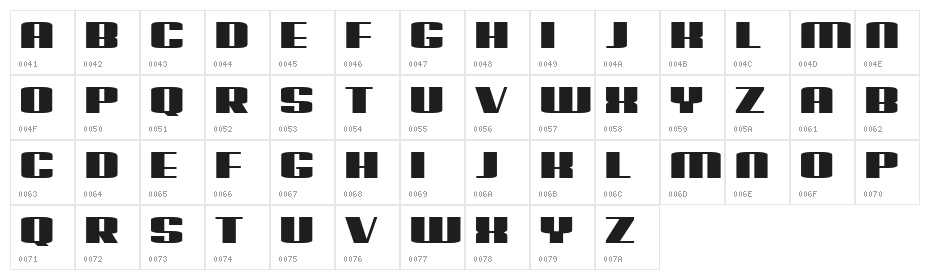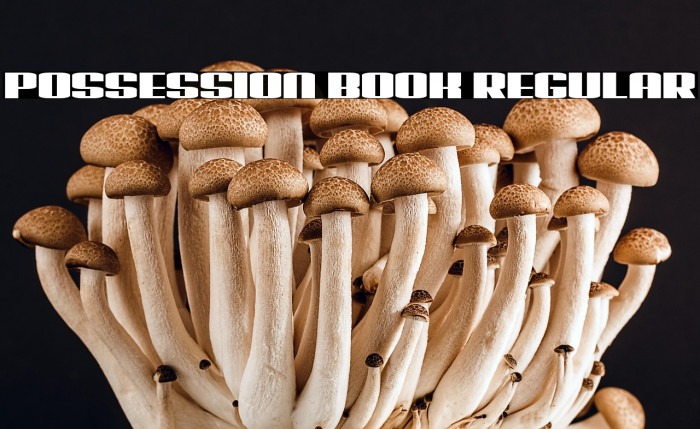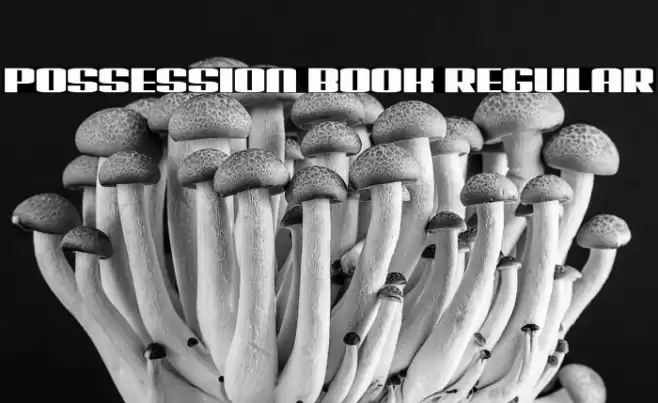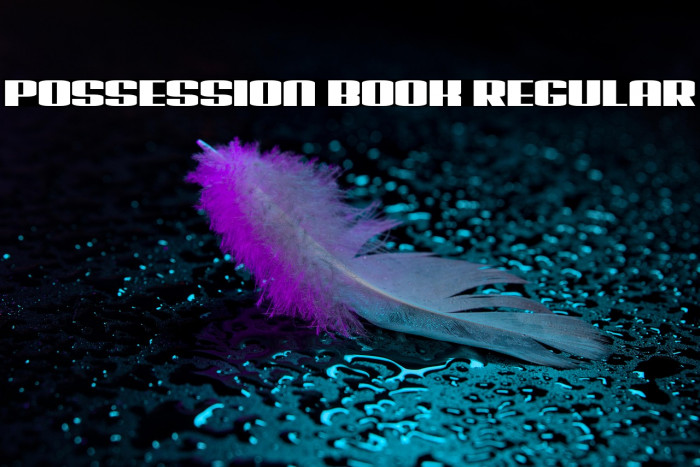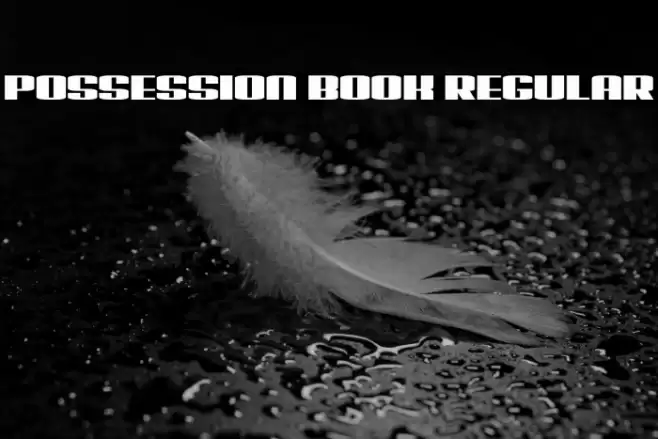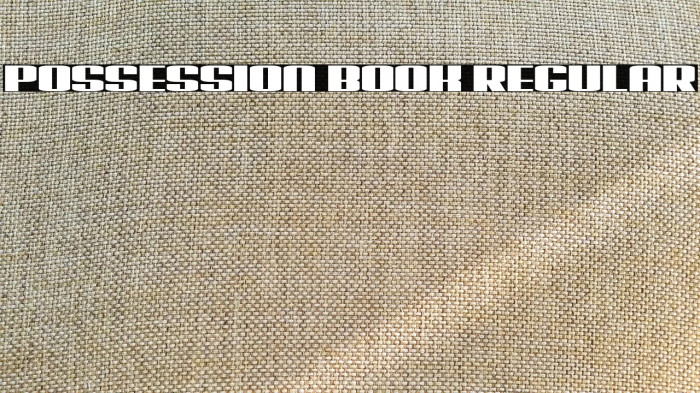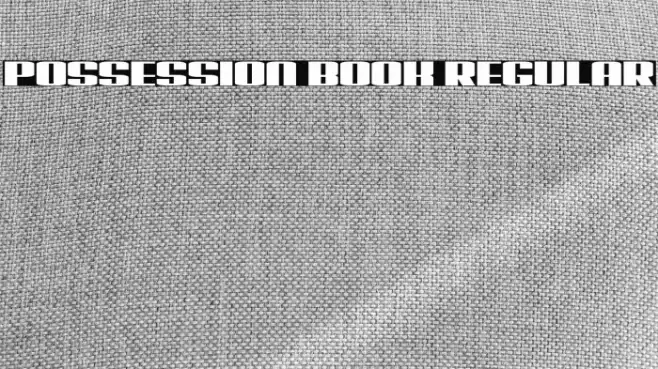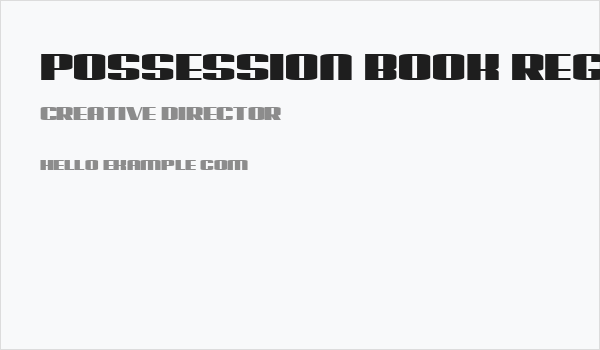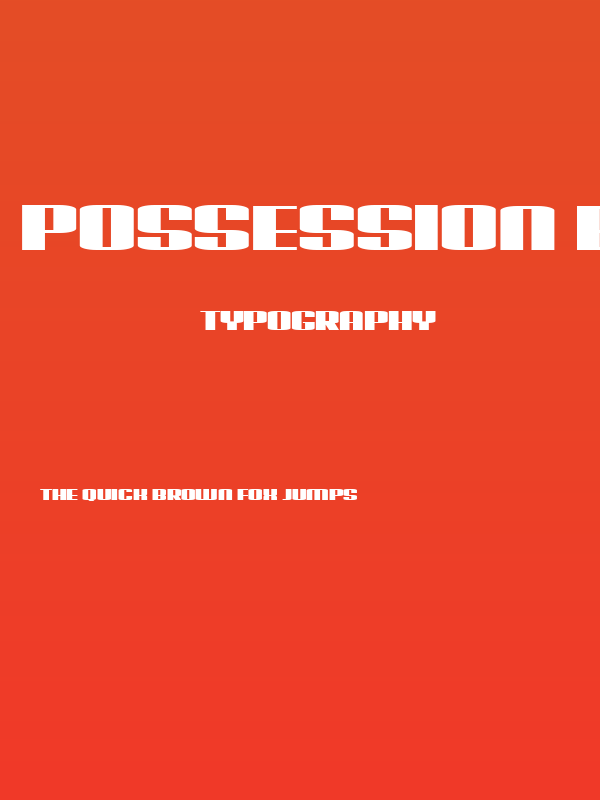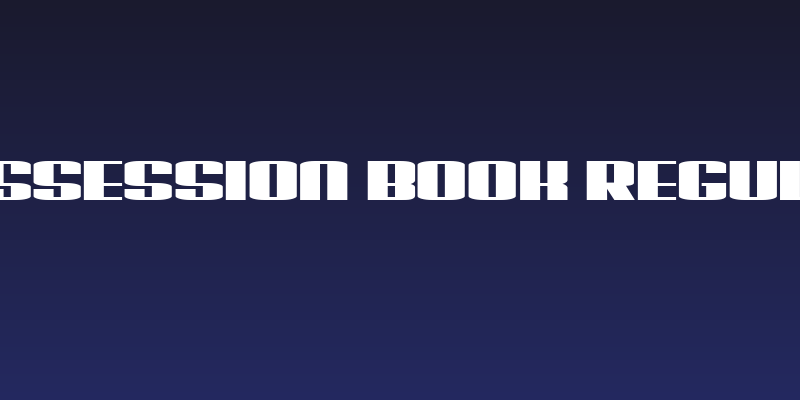
Possession Book Regular Font
Possession Book Regular Description
This font features a bold, geometric design with a strong presence. The characters are constructed with thick, block-like strokes that give it a robust and impactful appearance. The letterforms are uniform in width, creating a cohesive and structured look. The font's style is reminiscent of industrial and modern design, making it suitable for projects that require a bold statement. The uppercase letters are particularly striking, with their solid and consistent shapes. This font is ideal for use in headlines, posters, and branding materials where a strong visual impact is desired.
| Proposed Projects | Ideal for headlines, posters, branding, and any project needing a bold, impactful typeface. |